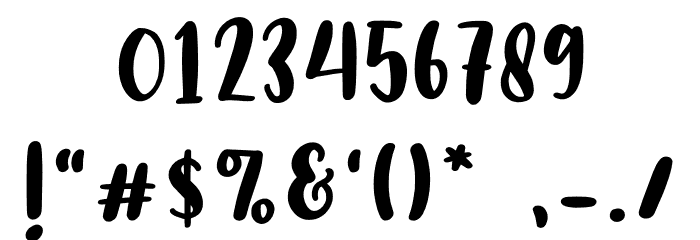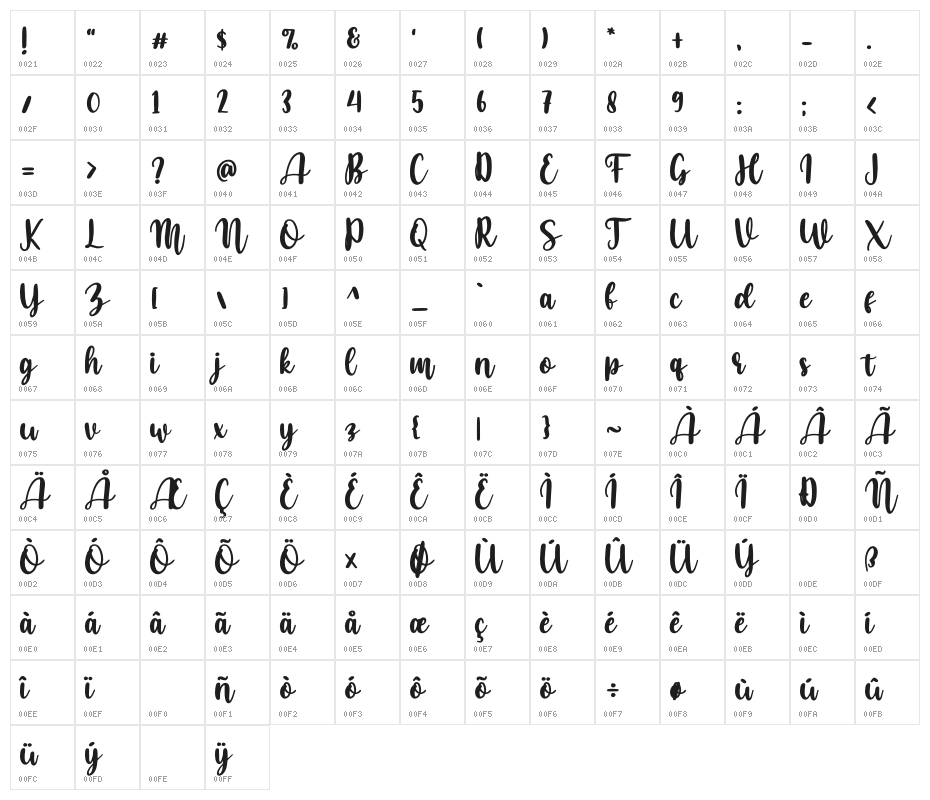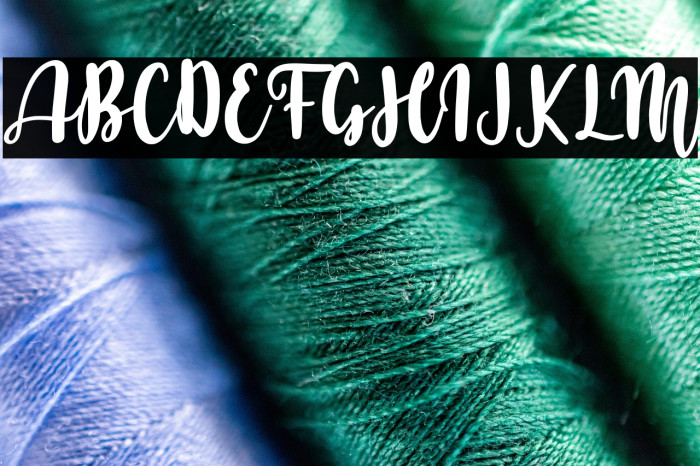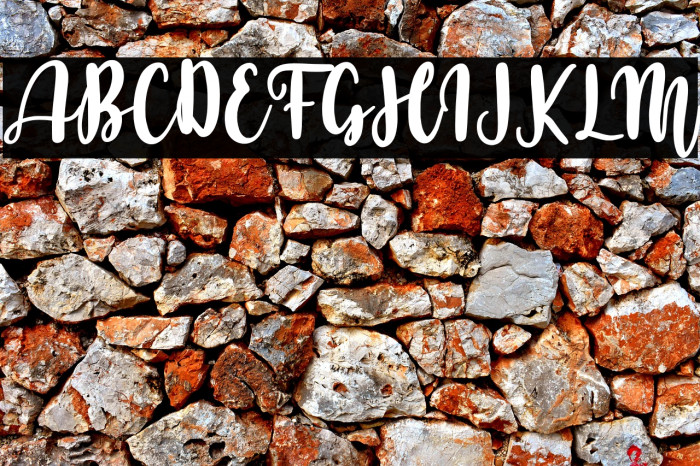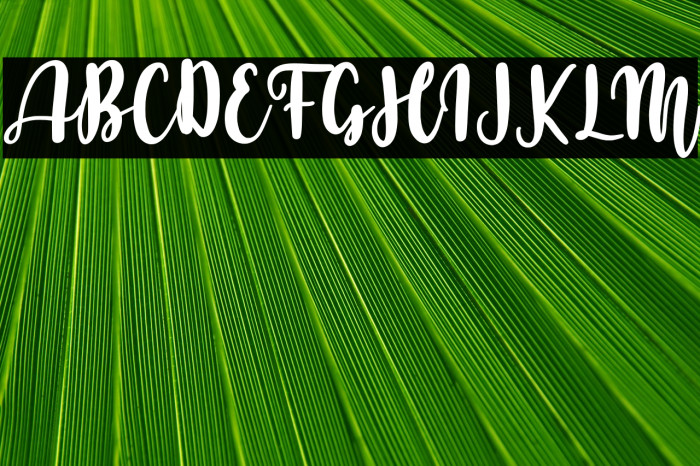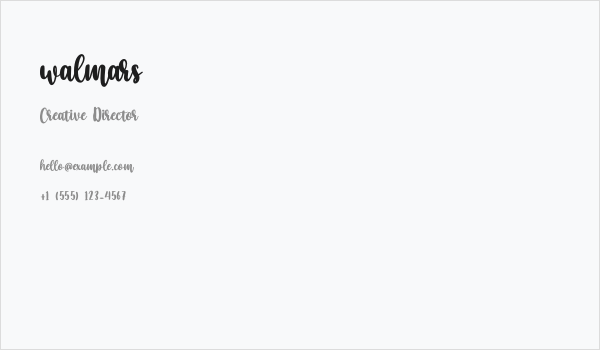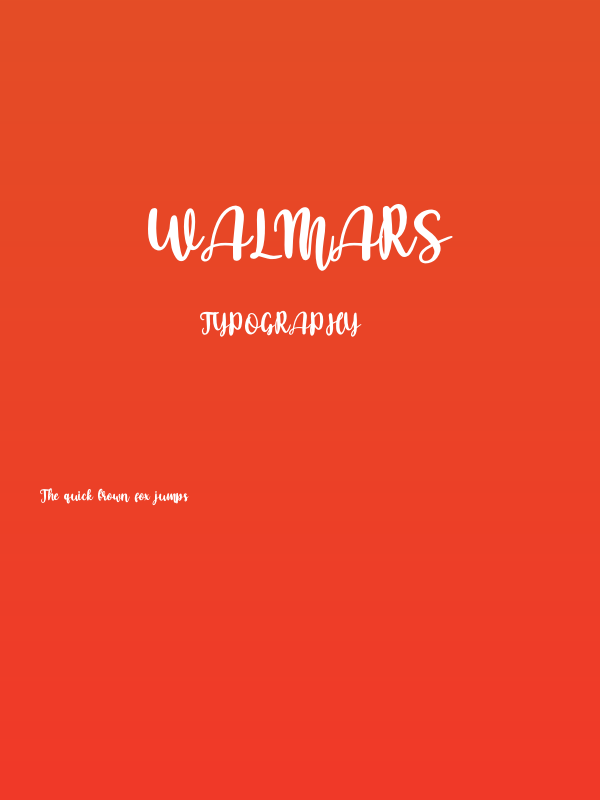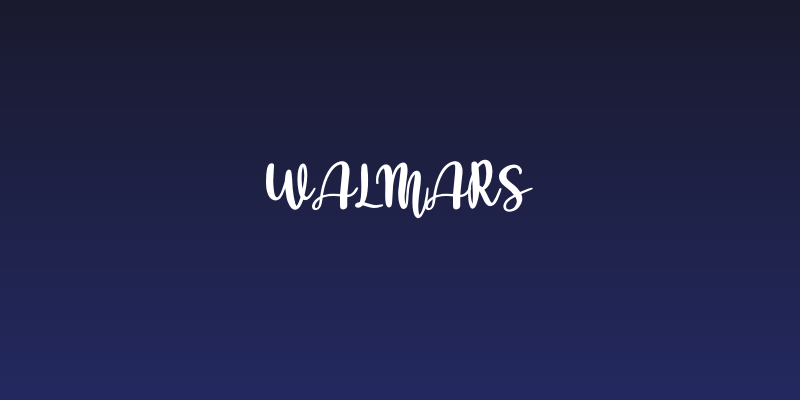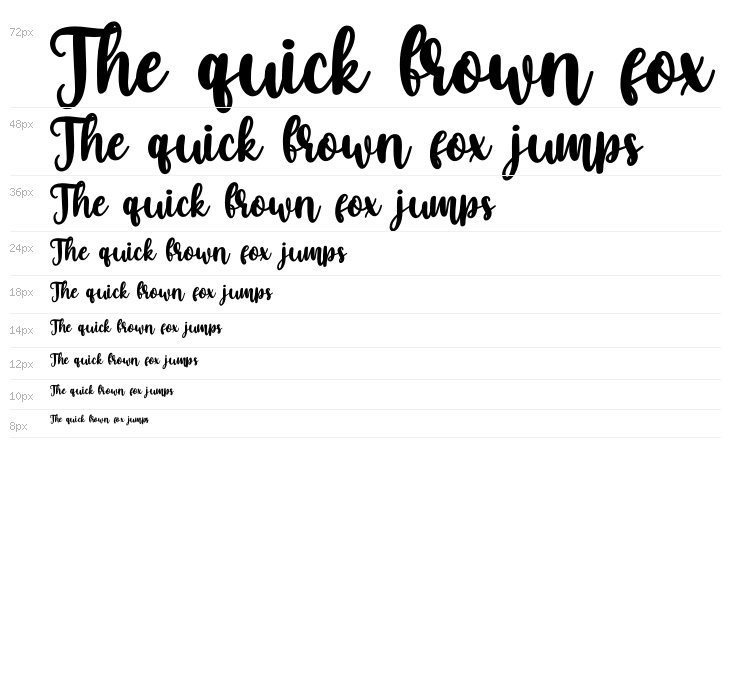
walmars Font
This font features a bold and expressive script style, characterized by its flowing, cursive letterforms. The strokes are thick and consistent, giving it a strong presence on the page. The uppercase letters are elegantly curved, with a playful yet sophisticated flair, while the lowercase letters maintain a cohesive and smooth flow. The numerals are clear and bold, matching the overall style of the alphabet. Special characters are included, maintaining the same bold and expressive quality. This font is ideal for creating eye-catching designs that require a touch of elegance and personality.
A bold, expressive script font with flowing, cursive letterforms.
- Font: walmars
- Proposed Projects: Ideal for wedding invitations, branding, social media graphics, and product packaging.
- Category: Script
- Use Case: Logos, Headlines, Invitations